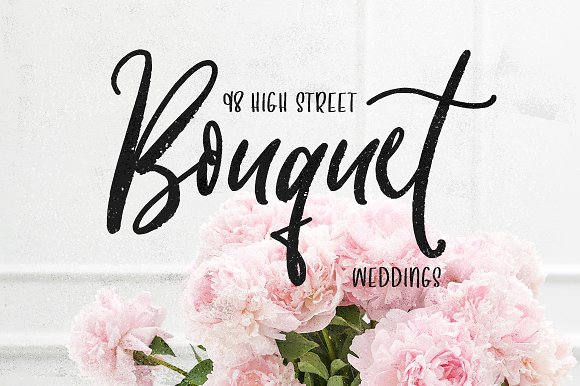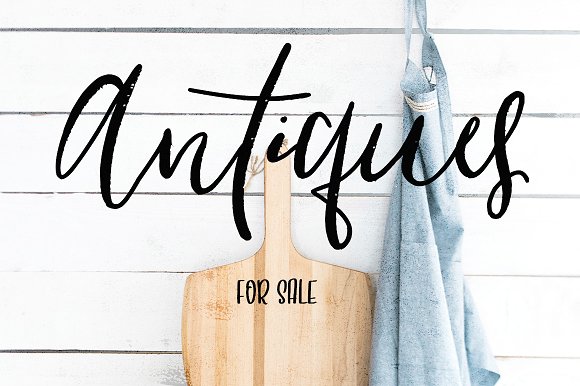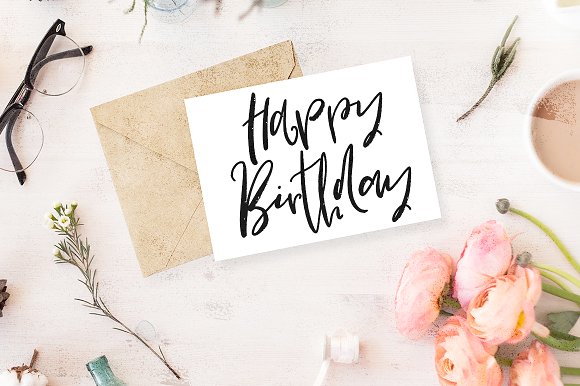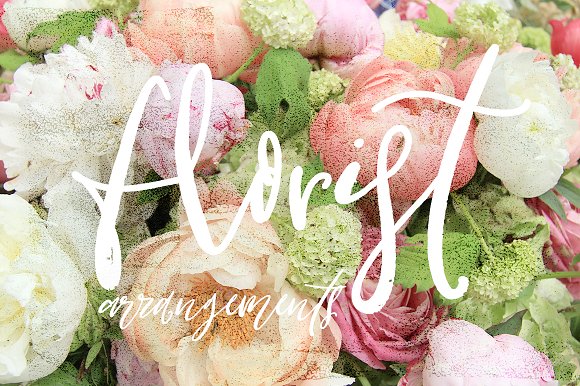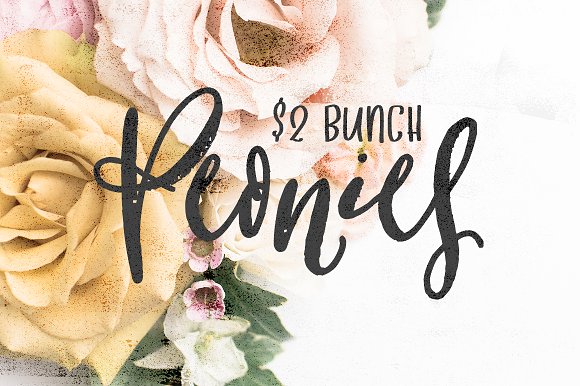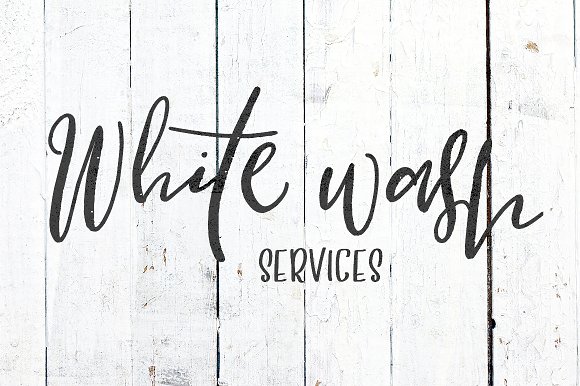
The Charm of Cottage Gardens: A Handcrafted Font Review
I’ll never forget the moment I stumbled upon the perfect font for a client’s whimsical garden design project. I had been scouring the internet for what felt like hours, trying to find a font that captured the essence of a charming cottage garden. That’s when I discovered Cottage Gardens, a beautiful handcrafted font created by Creativeqube. ✨
- ✨ The whimsical, hand-drawn feel of Cottage Gardens instantly adds a touch of warmth and personality to any design project.
- ✅ The font’s versatility makes it perfect for a wide range of applications, from garden labels to wedding invitations.
- 💕 The attention to detail in Cottage Gardens is impressive, with beautifully crafted letterforms and subtle imperfections that give it a handmade feel.
While Cottage Gardens is an exceptional font, there are a few minor quirks to be aware of: 🤔
- ⚠️ Some users may find the font’s handcrafted nature makes it less suitable for very formal or corporate designs.
- ⚠️ The font’s intricate details can be lost if scaled down too small.
Cottage Gardens was designed by Creativeqube with the intention of capturing the essence of a charming, whimsical garden. The font’s creator drew inspiration from traditional English garden designs, infusing the font with a sense of warmth and personality. 🌼
Q: Is Cottage Gardens suitable for digital use?
A: Absolutely! Cottage Gardens is designed to be versatile and can be used for both print and digital projects. However, keep in mind that the font’s intricate details may be lost if scaled down too small for digital use.